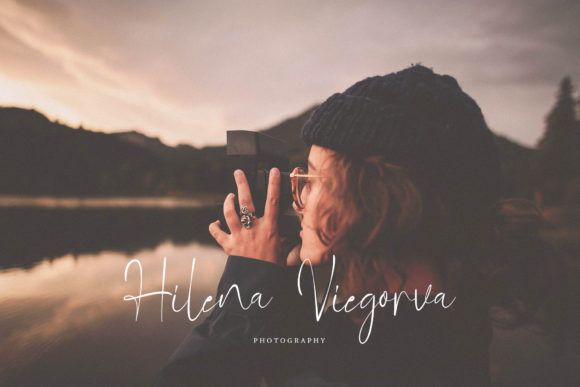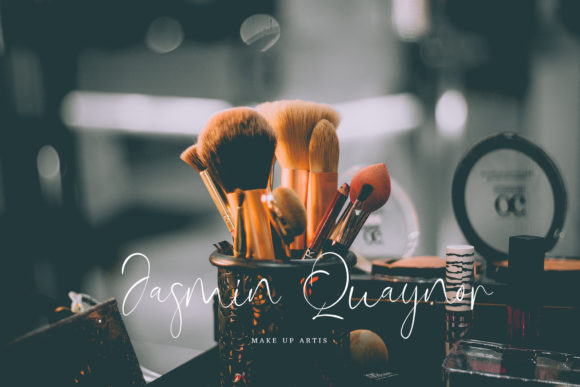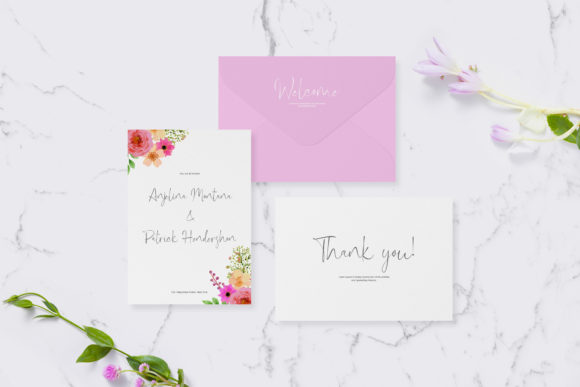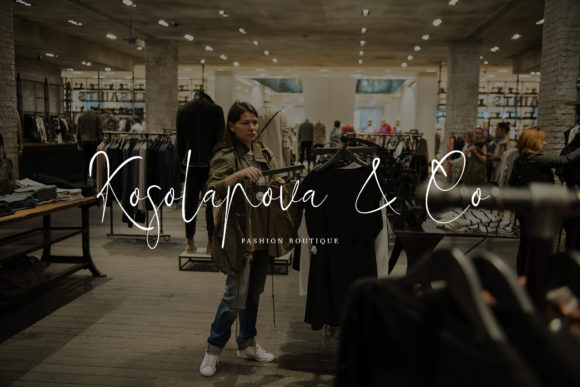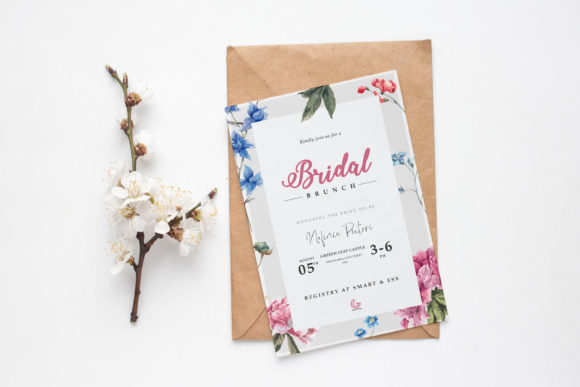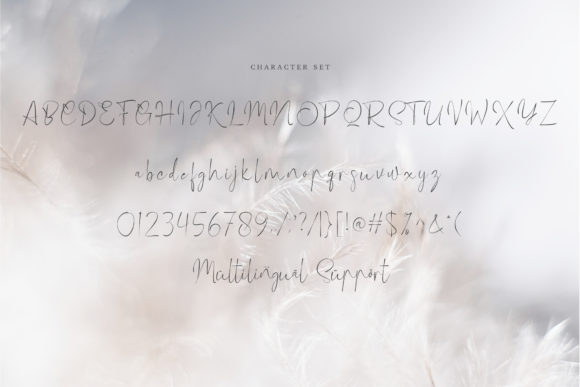
Marylinda Font
About Marylinda Font
Marylinda is a stylish signature font with an elegant feel. Get inspired by its authentic feel and use it to create gorgeous wedding invitations, beautiful stationary art, eye-catching social media posts, and cute greeting cards.